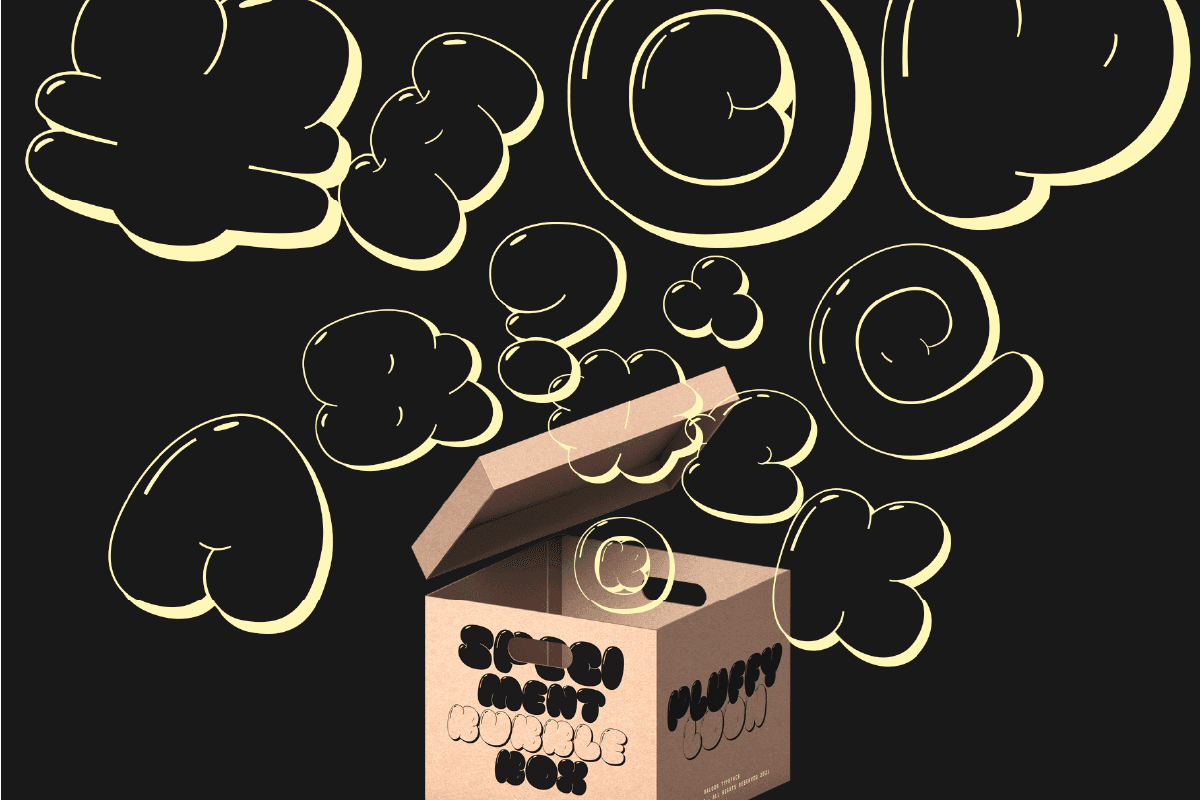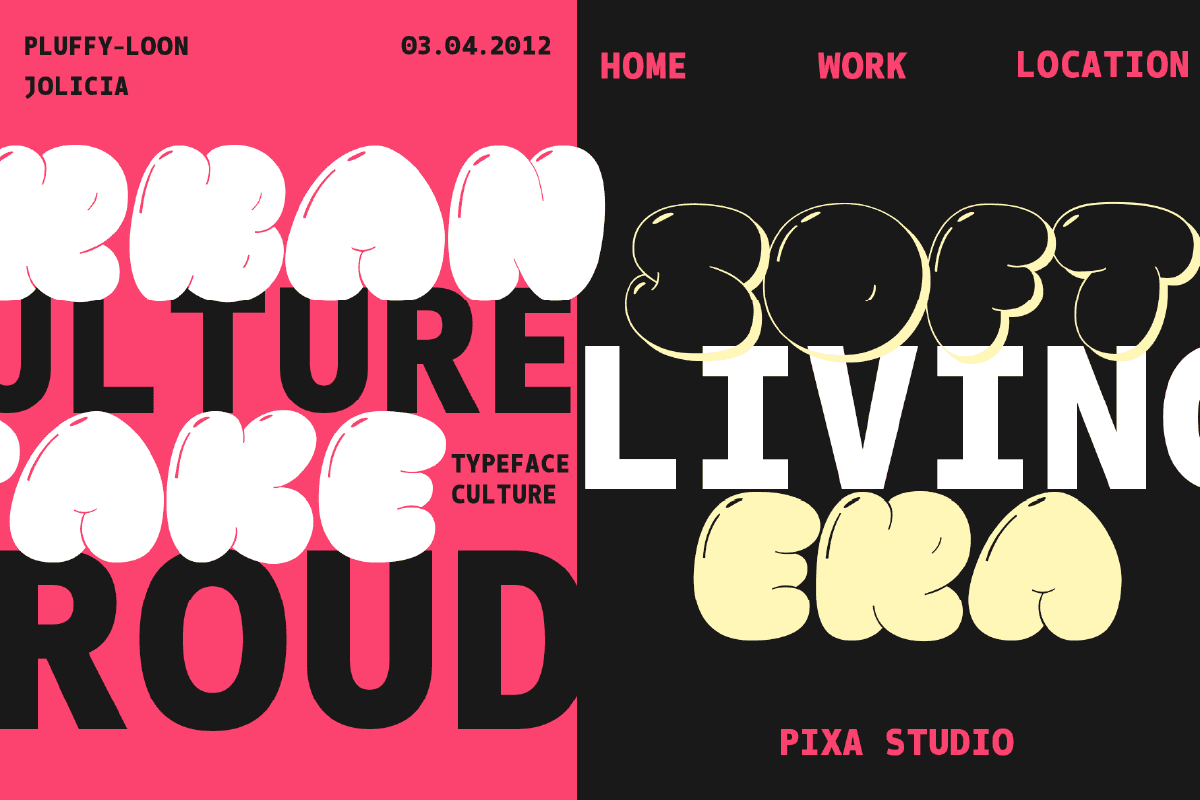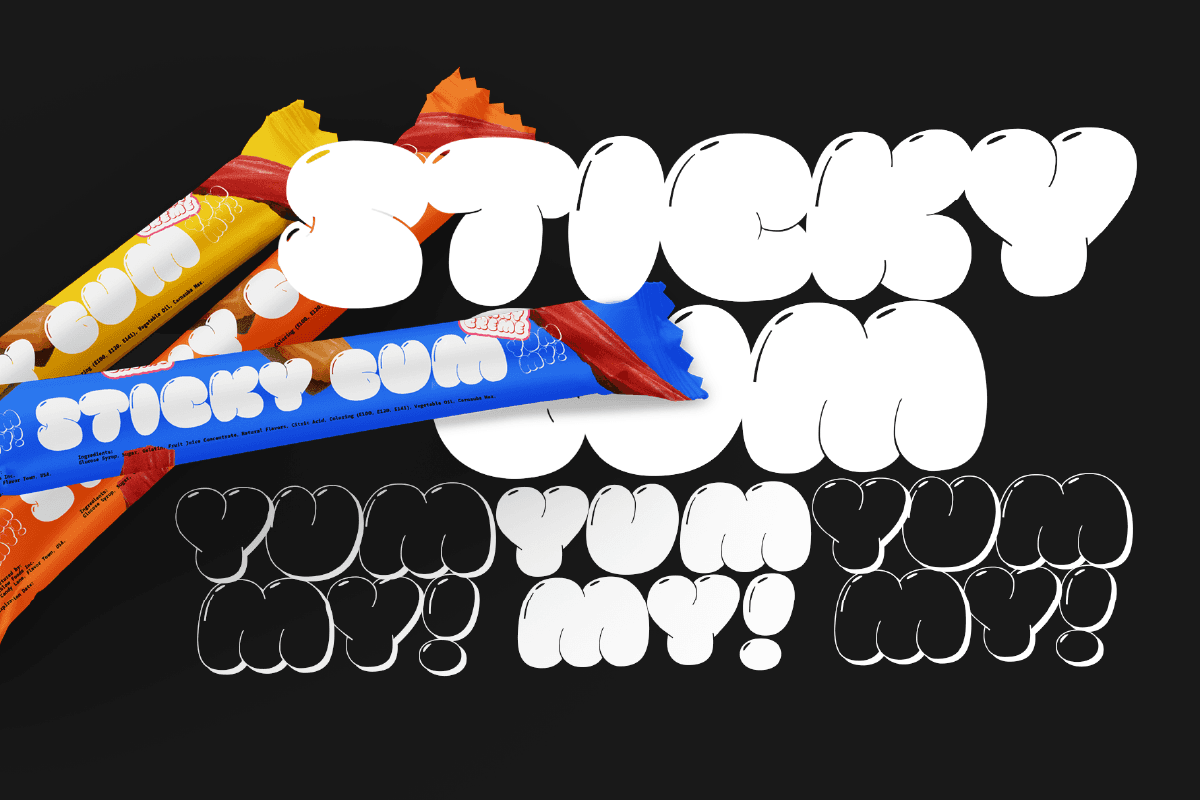
Pluffy Loon – Bubble Font
Pluffy Loon – Bubble Font is a bold, playful balloon-style font full of life! Featuring glossy 3D highlights, it’s perfect for kids’ invitations, birthday posters, toy branding, playful packaging, and creative projects that need a joyful, lively, and fun touch.